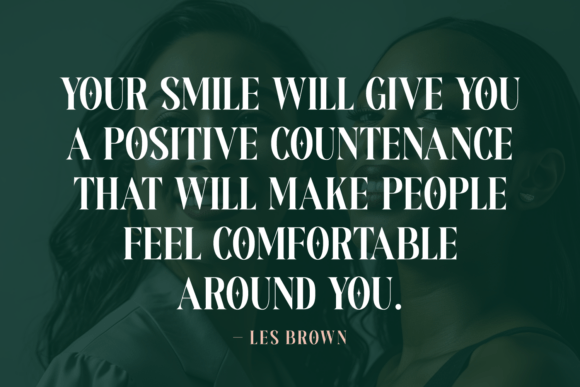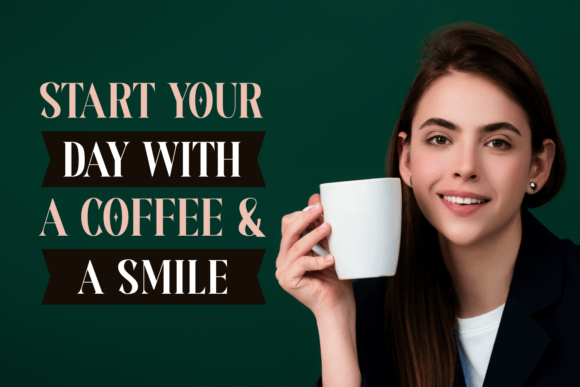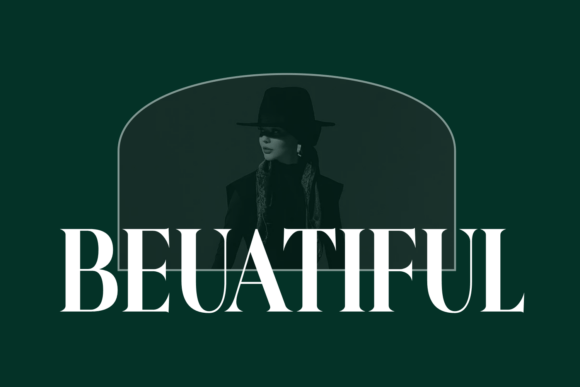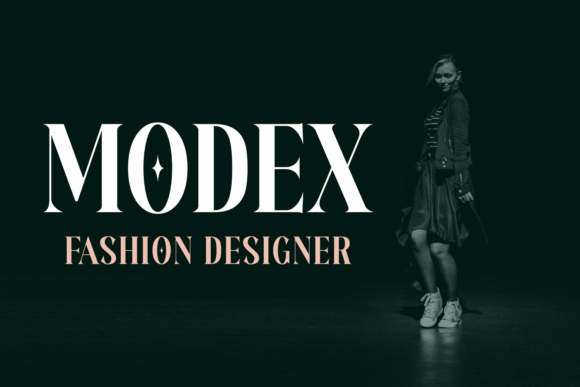
Introducing Double Smile Font: Elevate Your Designs with Elegance and Sophistication
In the world of typography, a well-crafted font can make all the difference in creating visually stunning designs. For designers and crafters seeking to add a touch of luxury and refinement to their projects, the Double Smile font is an exceptional choice. This elegant serif font exudes sophistication and charm, making it perfect for a variety of applications, from wedding invitations and branding to editorial design.
The Essence of Double Smile Font
Double Smile is more than just a font – it’s a statement of style and elegance. Its refined curves and balanced proportions create a timeless appeal that transcends fleeting design trends. The font’s classic serif design lends a sense of tradition and heritage, while its modern sensibilities ensure it remains fresh and relevant. This harmonious blend of old and new makes Double Smile an incredibly versatile font, suitable for a wide range of design projects.
Crafted for Luxury and Sophistication
One of the standout features of the Double Smile font is its ability to convey luxury and sophistication. Its elegant lines and precise craftsmanship evoke a sense of high-end quality, perfect for designs that require a touch of refinement. Whether you’re creating wedding invitations, luxury branding, or editorial content, Double Smile adds a level of polish and sophistication that elevates your designs to new heights.
Perfect for Wedding Invitations and Branding
Wedding invitations and branding materials are two areas where the Double Smile font truly shines. For wedding designs, the font’s romantic and elegant feel creates a beautiful first impression, setting the tone for a memorable and stylish celebration. In branding, Double Smile helps to establish a sense of luxury and exclusivity, making it ideal for high-end brands looking to differentiate themselves.
Editorial Design and Beyond
Beyond wedding invitations and branding, the Double Smile font is also well-suited for editorial design. Its readability and classic style make it an excellent choice for publications, magazines, and books, where clarity and elegance are paramount. Additionally, designers can use Double Smile in a variety of other projects, such as packaging, advertising, and digital media, to add a touch of sophistication and refinement.
Why Choose Double Smile Font?
- Elegant and Sophisticated: Double Smile exudes luxury and refinement, making it perfect for high-end designs.
- Timeless Appeal: The font’s classic design ensures it remains relevant and stylish for years to come.
- Versatile: Suitable for a wide range of design projects, from wedding invitations to editorial content.
- Highly Readable: Double Smile’s clear and balanced design makes it easy to read, even in smaller sizes.
In conclusion, the Double Smile font is an exceptional choice for designers and crafters seeking to add a touch of elegance and sophistication to their projects. With its refined curves, balanced proportions, and timeless appeal, this elegant serif font is perfect for a variety of applications, from wedding invitations and branding to editorial design. By choosing Double Smile, designers can elevate their designs to new heights, creating visually stunning and luxurious content that leaves a lasting impression.